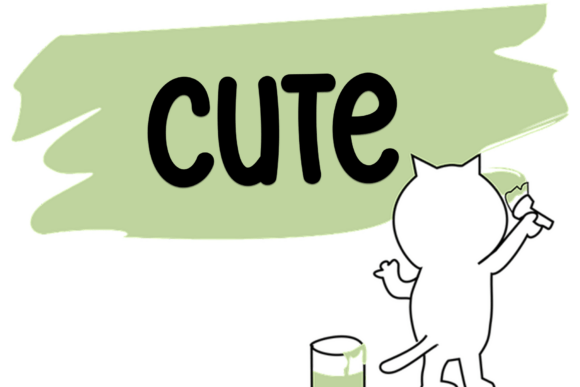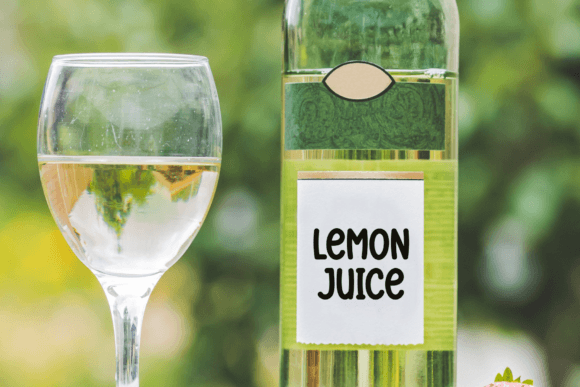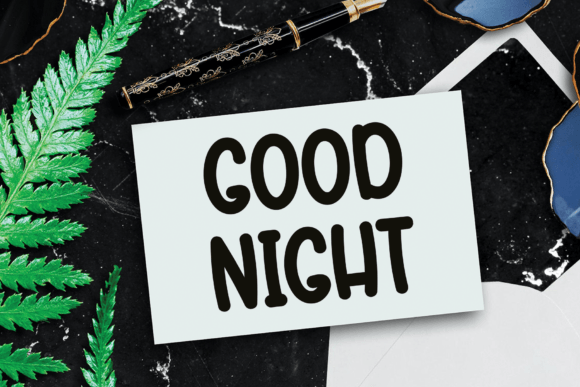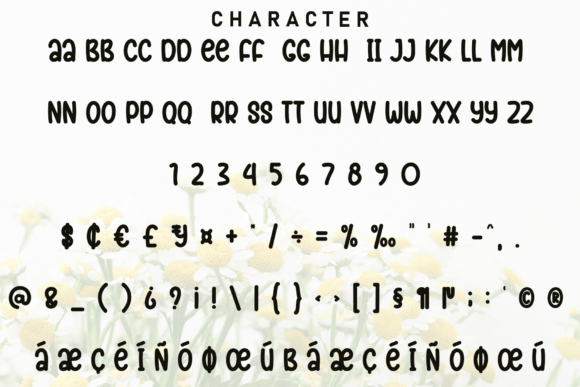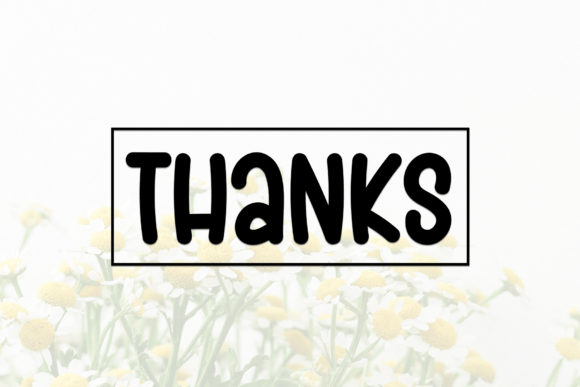
Introducing City Night Font: The Perfect Blend of Luxury and Casual
Are you a designer or crafter looking for a font that exudes elegance and sophistication while still maintaining a casual touch? Look no further than City Night Font, a stunning handwritten font that is sure to elevate your designs to the next level. In this article, we’ll dive into the world of City Night Font, exploring its unique features, uses, and benefits.
What is City Night Font?
City Night Font is a beautiful handwritten font that boasts a relaxed and sporty feel. Its unique charm lies in its marker-drawn appearance, giving it a distinctive and eye-catching quality. This font is perfect for designers and crafters who want to add a touch of luxury and elegance to their work without sacrificing a casual vibe.
Key Features of City Night Font
- Handwritten with a marker feel: City Night Font has a unique, hand-drawn quality that gives it a personal and approachable feel.
- Relaxed and sporty: This font’s casual tone makes it perfect for designs that require a laid-back, yet stylish aesthetic.
- Luxurious and elegant: Despite its casual nature, City Night Font still exudes a sense of sophistication and refinement, making it ideal for high-end designs.
Uses of City Night Font
City Night Font is incredibly versatile and can be used in a wide range of design applications, including:
- Branding and logos: Create a lasting impression with a custom logo that showcases your brand’s personality and style.
- Wedding supplies and greeting cards: Add a touch of elegance and whimsy to your wedding stationery and greeting cards.
- Fashion and lookbooks: Elevate your fashion designs and lookbooks with a font that exudes style and sophistication.
- Marketing promotions: Make your marketing materials stand out with a font that is both eye-catching and refined.
Benefits of Using City Night Font
So why choose City Night Font for your design projects? Here are just a few benefits:
- Unique and eye-catching: City Night Font’s distinctive marker-drawn appearance sets it apart from other fonts and is sure to grab attention.
- Versatile: This font can be used in a wide range of design applications, making it a valuable addition to any designer’s toolkit.
- Elegant and sophisticated: City Night Font’s luxurious feel makes it perfect for high-end designs and brands that want to convey a sense of refinement and style.
Tips for Using City Night Font
To get the most out of City Night Font, here are a few tips to keep in mind:
- Pair with contrasting fonts: Combine City Night Font with a contrasting font to create visual interest and add depth to your design.
- Experiment with colors: City Night Font looks great in a range of colors, so don’t be afraid to experiment and find the perfect hue for your design.
- Use it sparingly: While City Night Font is beautiful, it can be overwhelming if overused. Use it sparingly to create a sense of balance and harmony in your design.
City Night Font is a stunning handwritten font that offers the perfect blend of luxury and casual. Its unique marker-drawn appearance, relaxed and sporty feel, and elegant tone make it an excellent choice for designers and crafters looking to elevate their designs. With its versatility, eye-catching quality, and range of uses, City Night Font is sure to become a go-to font in your design toolkit.